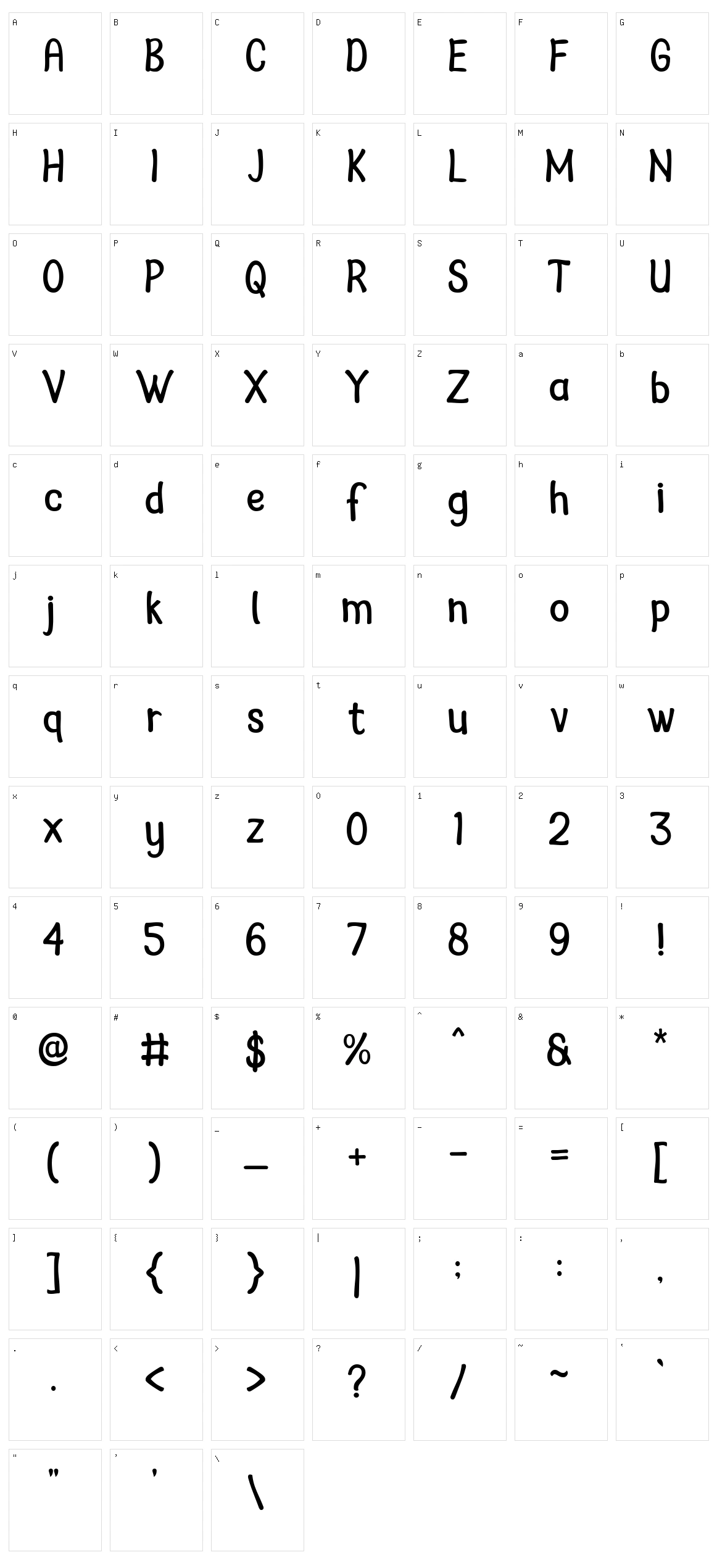
The free font Bencoleng is carefully designed by Mohammad Azmil Bahar, showcasing a thoughtful balance of creativity and usability and falls under the Script font style. When you download the ZIP file, it contains only 42.28 KB of font files, making it lightweight and quick to download. Please review the license details below to understand permitted usage and distribution rights. If license information is not available, we recommend using this font for personal projects only or contacting the author directly for commercial usage permissions.